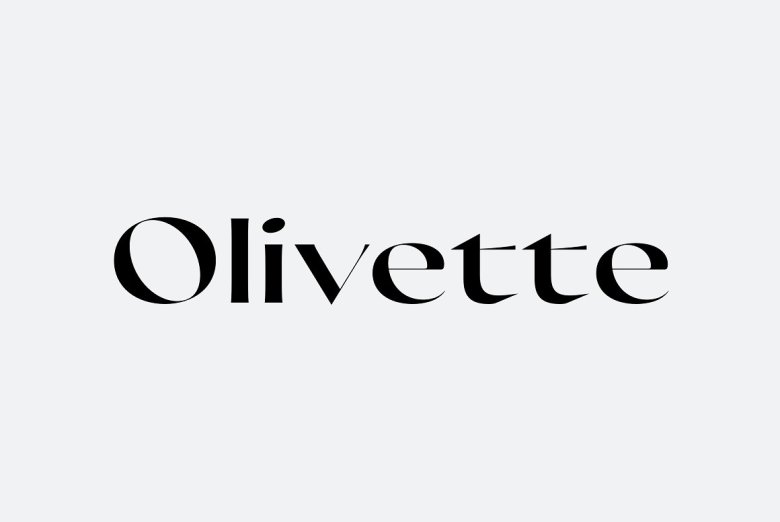
Olivette CF Font Family
Olivette CF Font
Olivette CF is a certainly-once-in-lifetime sans serif category font of awesome energy and distinction from Connary Fagen. Your work will be illuminated by a one-of-a-kind, new appearance nowhere else to be found.
Olivette embodies essential minimalism with charm and character through an unparalleled stroke contrast and wide-open design. When enlarged on displays or in books, Olivette’s very variation details are noticeable.
Olivette CF Sans Serif Font